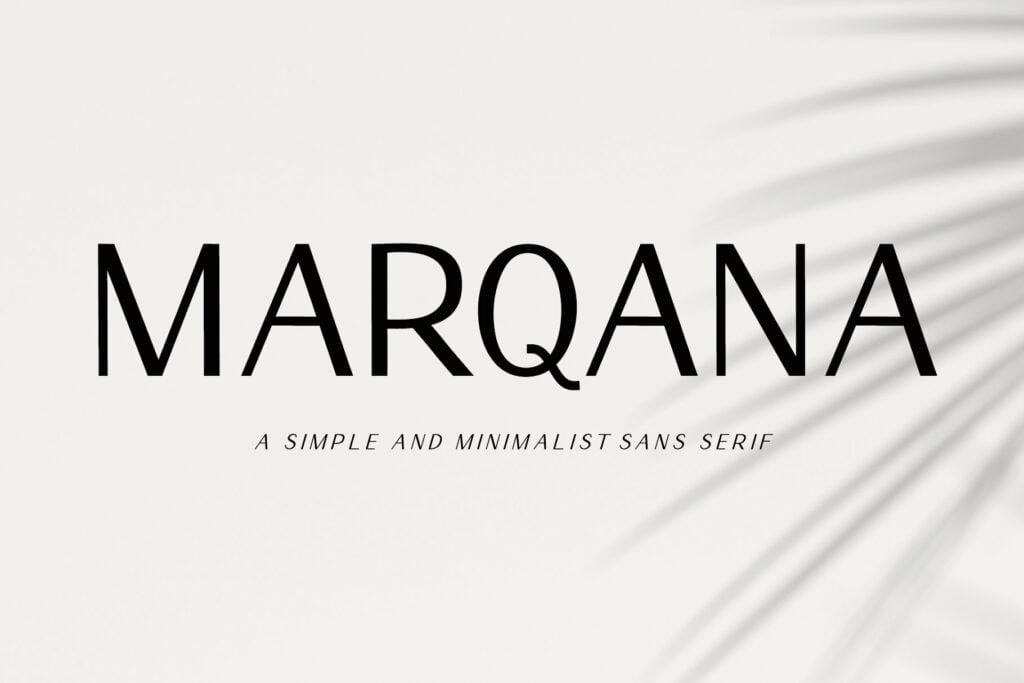
Marqana Font
Marqana is an elegant and modern sans-serif font. This font is ideal for writing web designs, business cards, or pretty much anything else that requires a unique touch.
Marqana Modern Sans Font